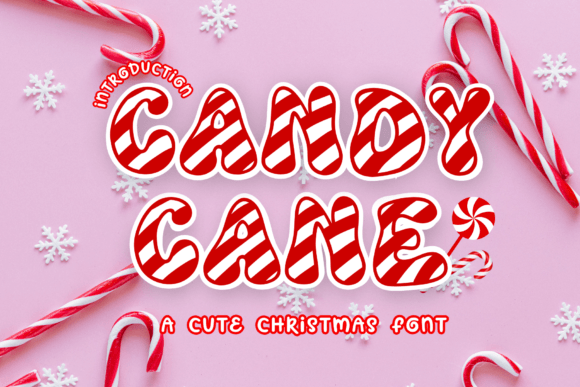
The Magic of Candy Cane Font: A Festive Design Delight
Do you remember the very first time you saw a candy cane hanging on a Christmas tree branch? Can you recall the minty taste, sometimes with a slight flavor of cinnamon? Can you evoke in your mind the scent of the tree filling up the room? Well, if you do, you can appreciate this font, and use it to bring those memories to print.
Candy Cane Retro is a fun, festive, and incredibly unique decorative font that can add a touch of holiday cheer to your designs. As a designer, I’ve had my fair share of struggling to find the right font for a project. I recall working on a Christmas-themed design for a client, searching for a font that would capture the essence of the holiday season. That’s when I stumbled upon Candy Cane Retro, and it instantly became my go-to font for all things festive.
- ✨ Unique and festive design that’s perfect for Christmas-themed projects
- ✅ Easy to read and understand, even in smaller font sizes
- 🎉 Fun and playful vibe that adds a touch of personality to any design
- 💻 Highly versatile and can be used for various design ideas, from holiday cards to festive packaging
While Candy Cane Retro is an amazing font, there are a few things to keep in mind:
- ⚠️ The font may not be suitable for very formal or professional designs, as it’s quite playful and festive
The Backstory of Candy Cane Font
Candy Cane Retro was designed with the goal of capturing the magic and wonder of the holiday season. The font’s creator was inspired by the classic candy canes of childhood, with their red and white stripes and sweet, minty flavor. The result is a font that’s both fun and festive, perfect for adding a touch of holiday cheer to any design.